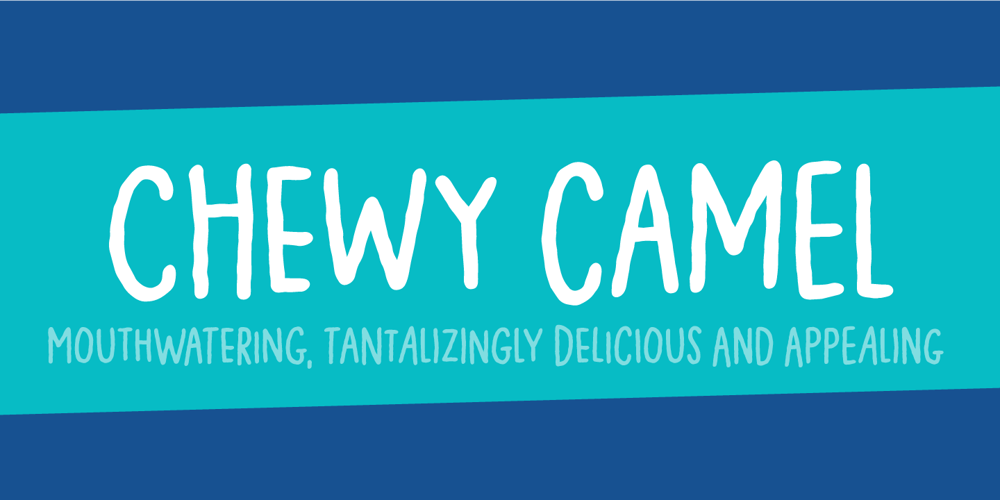
Chewy Camel Font Family was designed by Jakob Fischer and published by Bogstav. Chewy Camel contains 2 styles and family package options. Originally I wanted to call this font Chewy Caramel, because I love caramel.But that name was already taken, so I deleted two letters in the name and ended up with Chewy Camel instead.I know that the designer of Chewy Caramel don’t mind – because that is my good friend, David, who made that one! :)Chewy Camel was made with a slightly blurry and inky pen, and is suitable for most things that need a true organic hand lettered font.I have added 6 slightly different versions of each letter, and there is multilingual support as well